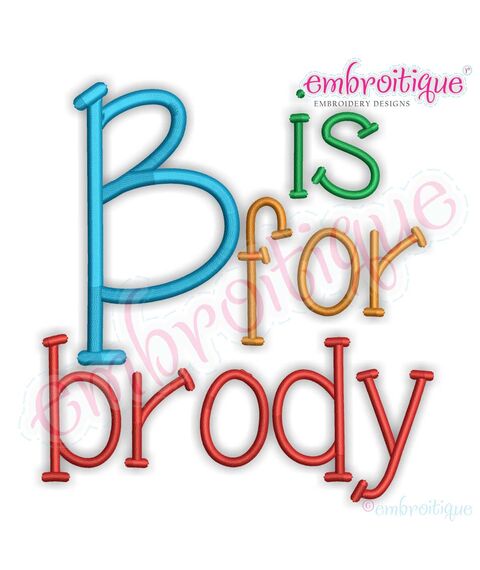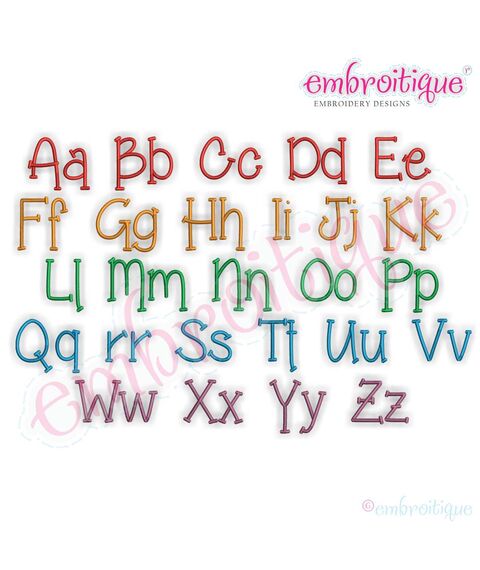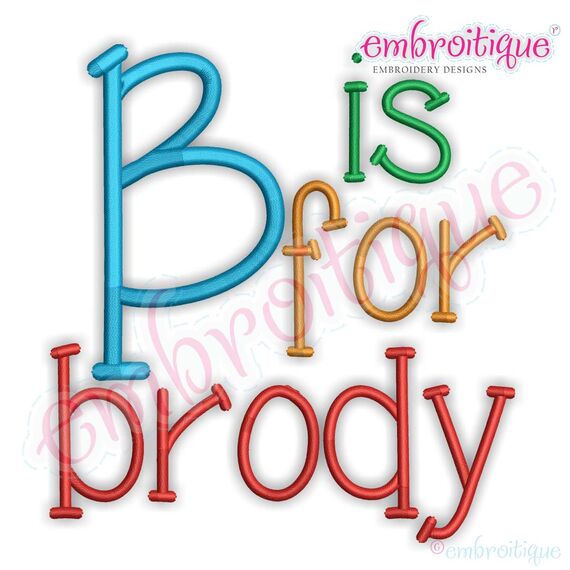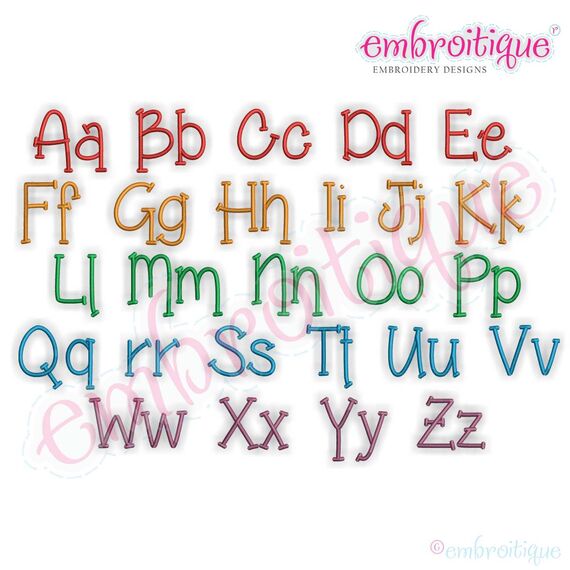
Brody Whimsical Handwritten Monogram Font - great for Boys & Girls!
We just love this set! This font will add just the right amoung of whimsy to any embroidery project.
Of course it is great to use for girls - but we just LOVE this one for boys - and you will too!
We just love this new set! This font will add just the right amoung of whimsy to any embroidery project.
Of course it is great to use for girls - but we just LOVE this one for boys - and you will too!